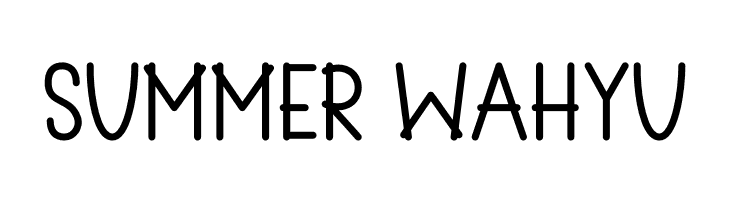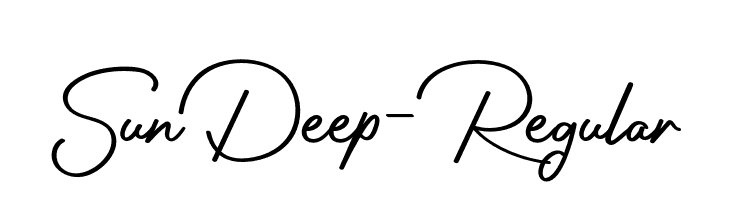
A playful, handwritten font with rounded, consistent strokes and a casual vibe.
An elegant, flowing script font with a sophisticated, handwritten style.
A playful, handwritten font with smooth, flowing lines and a casual feel.
A bold, expressive script font with a hand-drawn, dynamic style.
A bold, handwritten font with a playful and friendly style.
A casual, handwritten font with smooth, flowing curves and a lively slant.
A playful, handwritten-style font with smooth, rounded edges and a casual vibe.
A playful, bold, and rounded handwritten-style font.
A dynamic brush script font with fluid strokes and elegant flair.
A cursive, handwritten-style font with elegant, flowing lines.